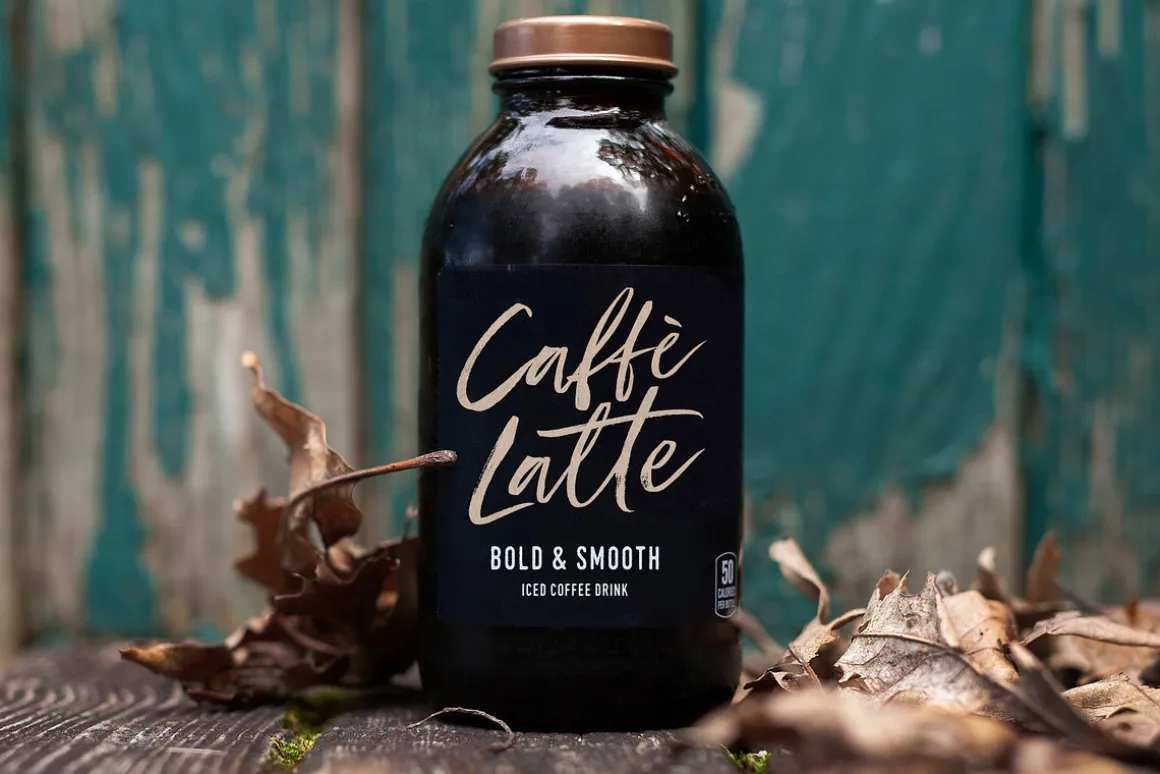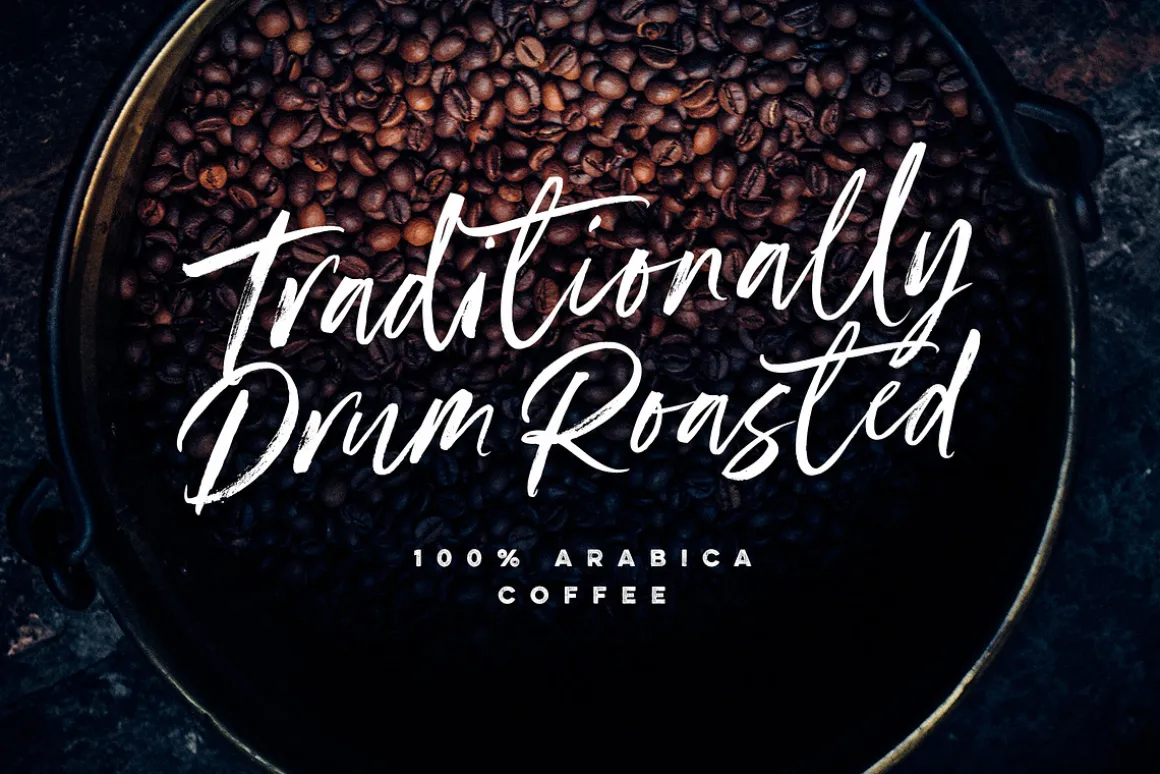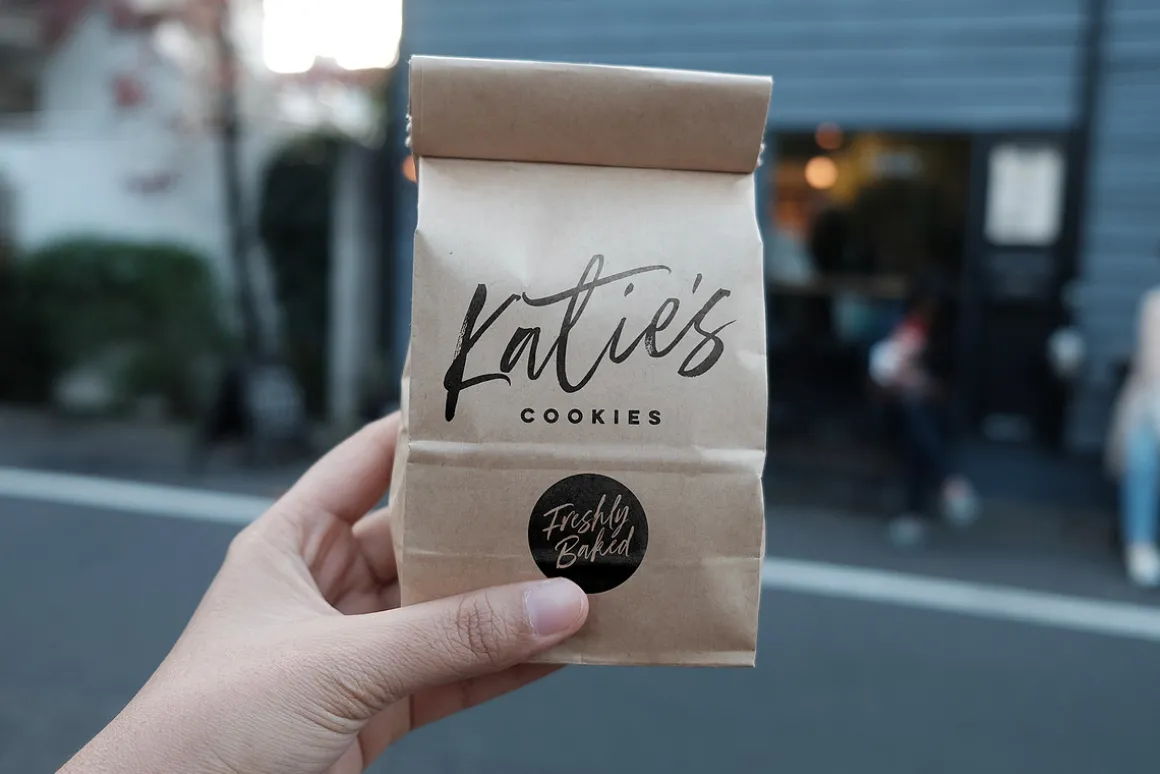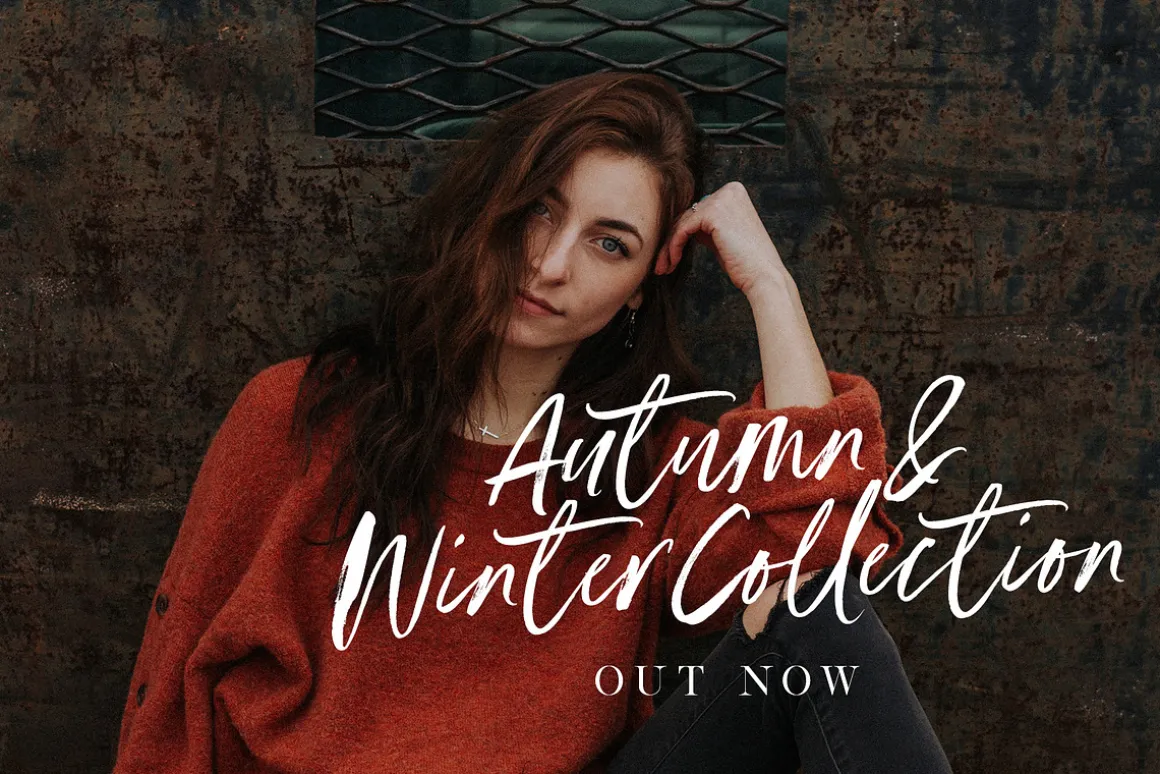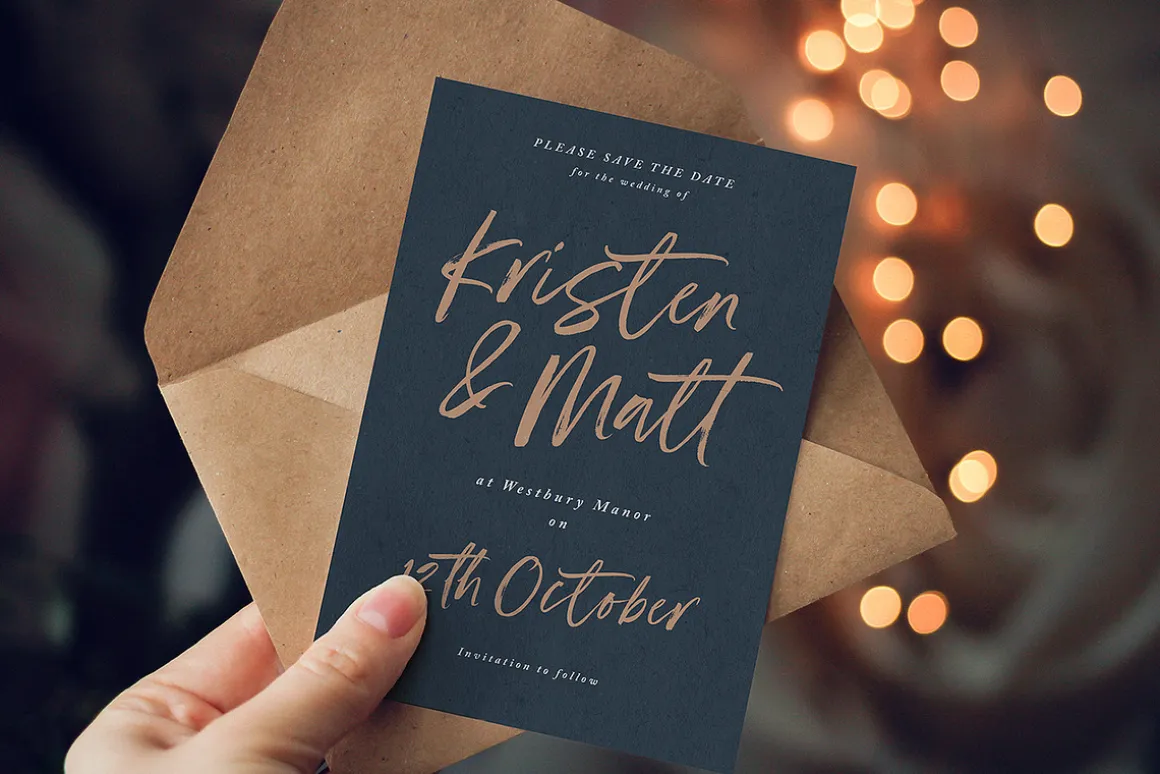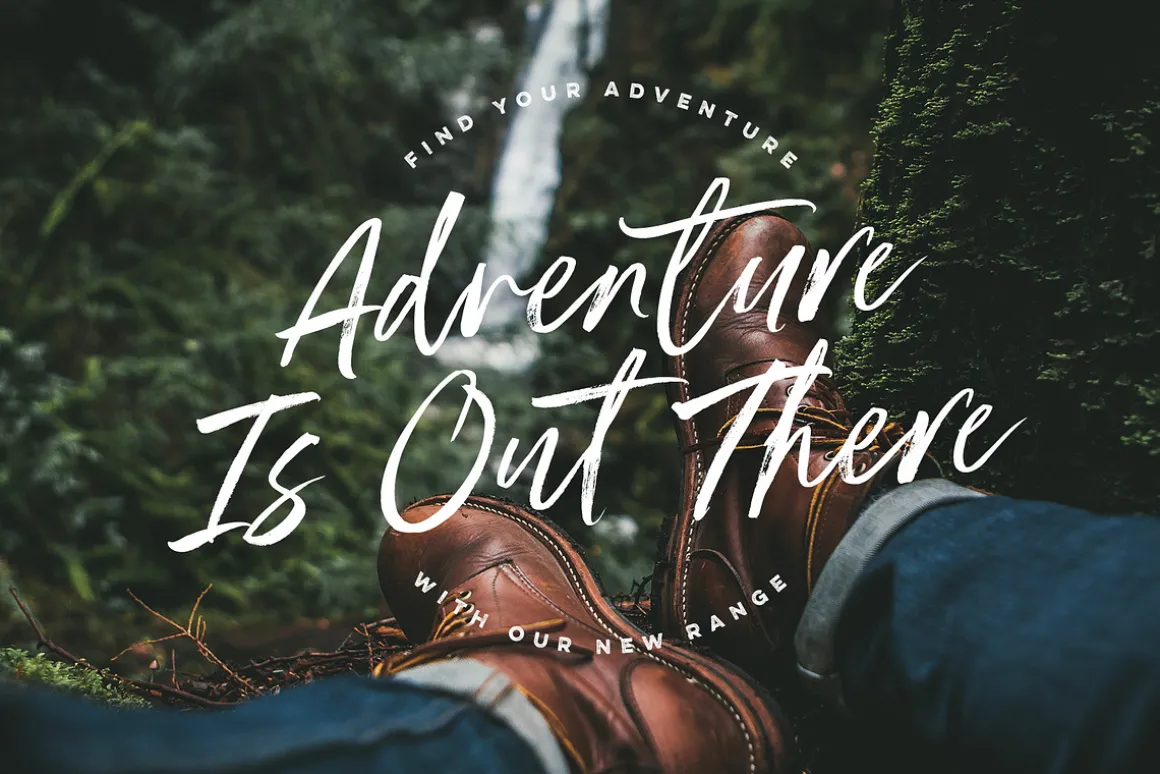
Introducing Portfield; A strikingly versatile and charming brush script font, hand-brushed with care. With organically flowing letters and a real brush pen texture, Portfield provides a perfect balance of casual yet captivating lettering for your design projects.
Portfield • A handwritten script font containing upper & lowercase characters, numerals, and a large range of punctuation.
Portfield Alt • This is a second version of Portland, with a completely new set of both upper and lowercase characters. If you wanted to avoid letters looking the same each time to recreate a custom-made style, or try a different word shape, simply switch to this font for an additional layout option.
Ligatures • 15 ligatures (double-letters) are included to help your lettering flow more naturally. Many programs will automatically have this feature switched on for you, but if you need any help accessing them, please feel free to drop me a message.